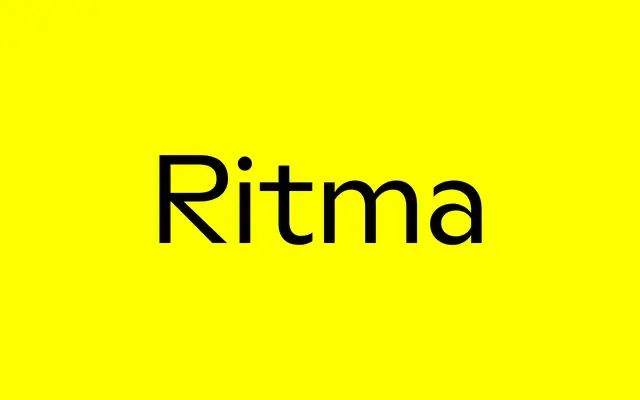
BST Ritma specimen from British Standard Type
A contemporary humanist sans that blends Johnston and Gill Sans references with neo-grotesque proportions across seven weights.
Drawing on early twentieth-century British humanist typefaces including Johnston Sans and Gill Sans, as well as Super Grotesk and Futura, BST Ritma rejects classical monumental capital proportions in favour of neo-grotesque width principles. The result is a wide-bodied, even-textured family with a balanced x-height and dynamic rhythm across seven weights from Thin to Bold. Partner italics and a monospace sister family are listed as forthcoming.
Explicitly described as a contemporary humanist sans serif drawing on Johnston Sans, Gill Sans, Super Grotesk and Futura, with neo-grotesque design principles overlaid on a humanist structure.